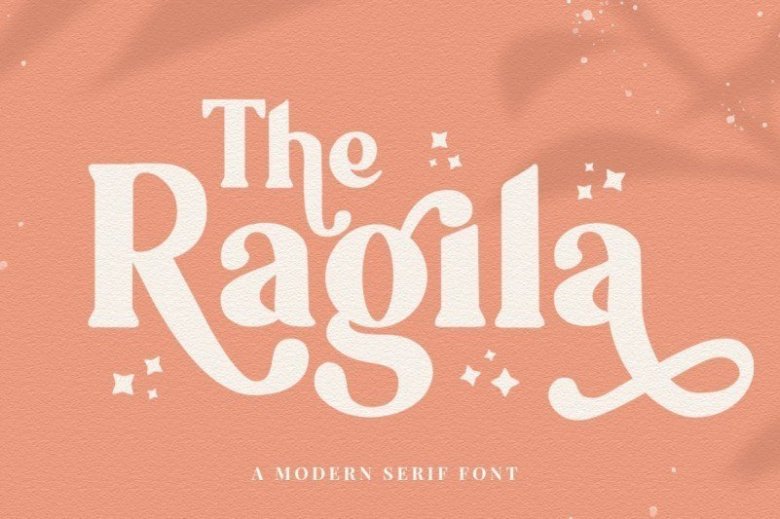
Ragila Modern Serif Font
Ragila Font is an elegant editorial style modern serif font, carefully crafted to add effortless elegance to your work. It comes with many ligatures and a variety of elegant alternates, which make the font extremely versatile.
Perfect for branding projects, Logo design, Clothing Branding, product packaging, magazine headers, or simply as a stylish text overlay to any background image.